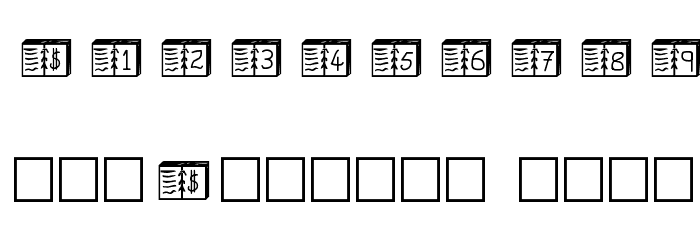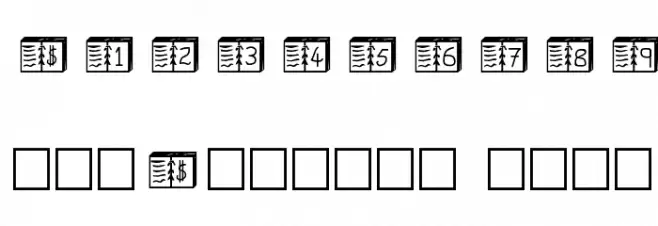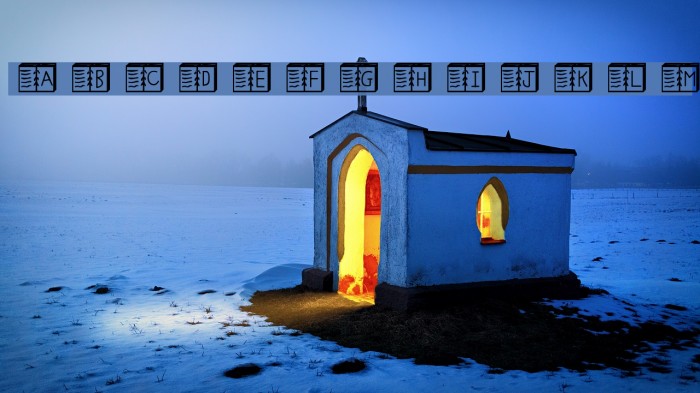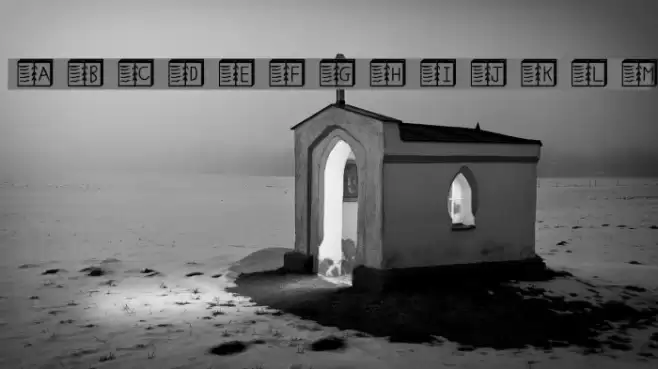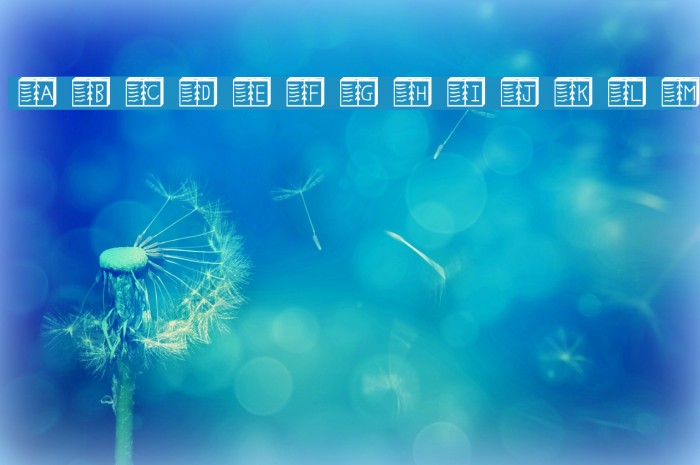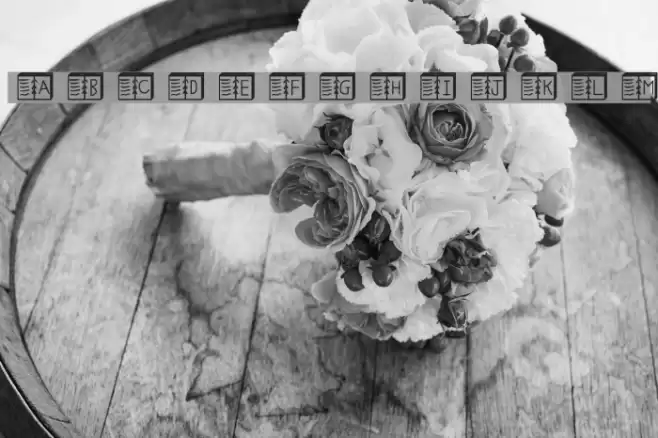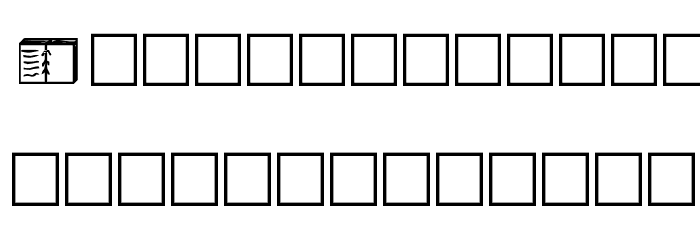
Jumble Book Font
Jumble Book Description
This font features a playful and whimsical design, with each character enclosed within a book-like frame. The letters are stylized with a hand-drawn appearance, giving them a unique and artistic flair. The uppercase and lowercase letters maintain a consistent style, while the numbers and special characters follow the same theme, ensuring uniformity across the font. The design is reminiscent of a storybook or educational theme, making it ideal for projects that require a touch of creativity and imagination.
| Overall Style | Whimsical, Artistic |
| Use Case | Headlines, Logos, Creative projects |
| Proposed Projects | Ideal for children's books, educational materials, playful branding, and creative projects. |